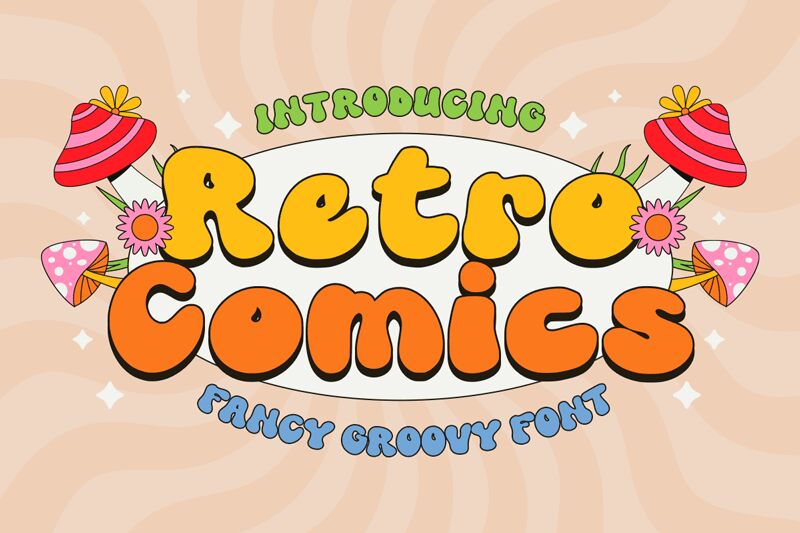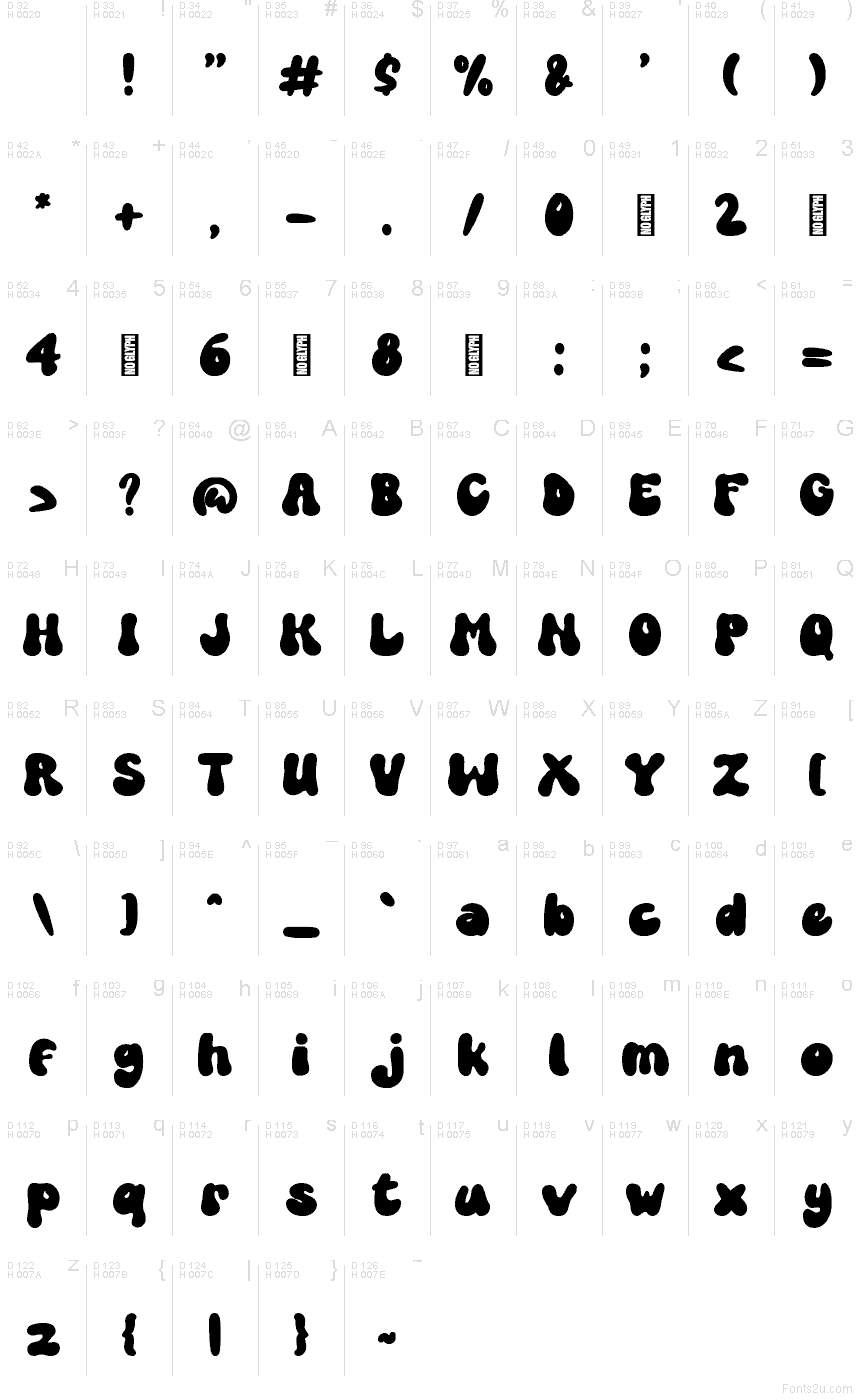
Retro Comics font by Azzam Ridhamalik of Zarma Type Foundry comes in with thick, bubbly shapes that feel hand-inked and slightly squishy, like fresh marker on paper. The curves are generous, the counters stay open, and the weight stays confidently bold, so words land with a punchy, laugh-out-loud rhythm even at a glance. Retro Comics is a free cartoon font, and its typeface style brings instant Saturday-morning energy without getting messy.
Using Retro Comics, you’ll get big, friendly impact on comic covers, kids’ party invites, sticker packs, YouTube thumbnails, playful merch, snack packaging, and app splash screens. This free font also shines on short headlines and sound-effect text where you want a soft “pop” instead of sharp aggression. Pair it with a clean geometric sans for captions, and give it a little extra tracking when it’s all-caps to keep the bounce readable.